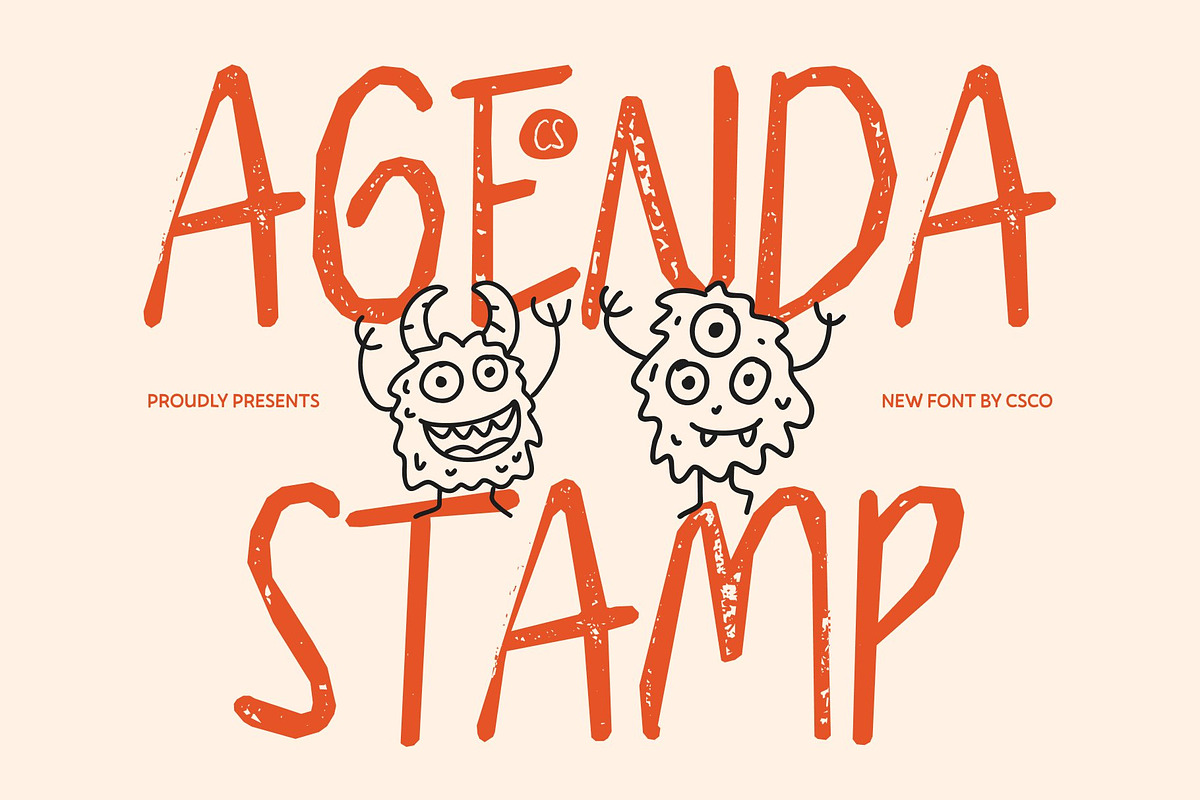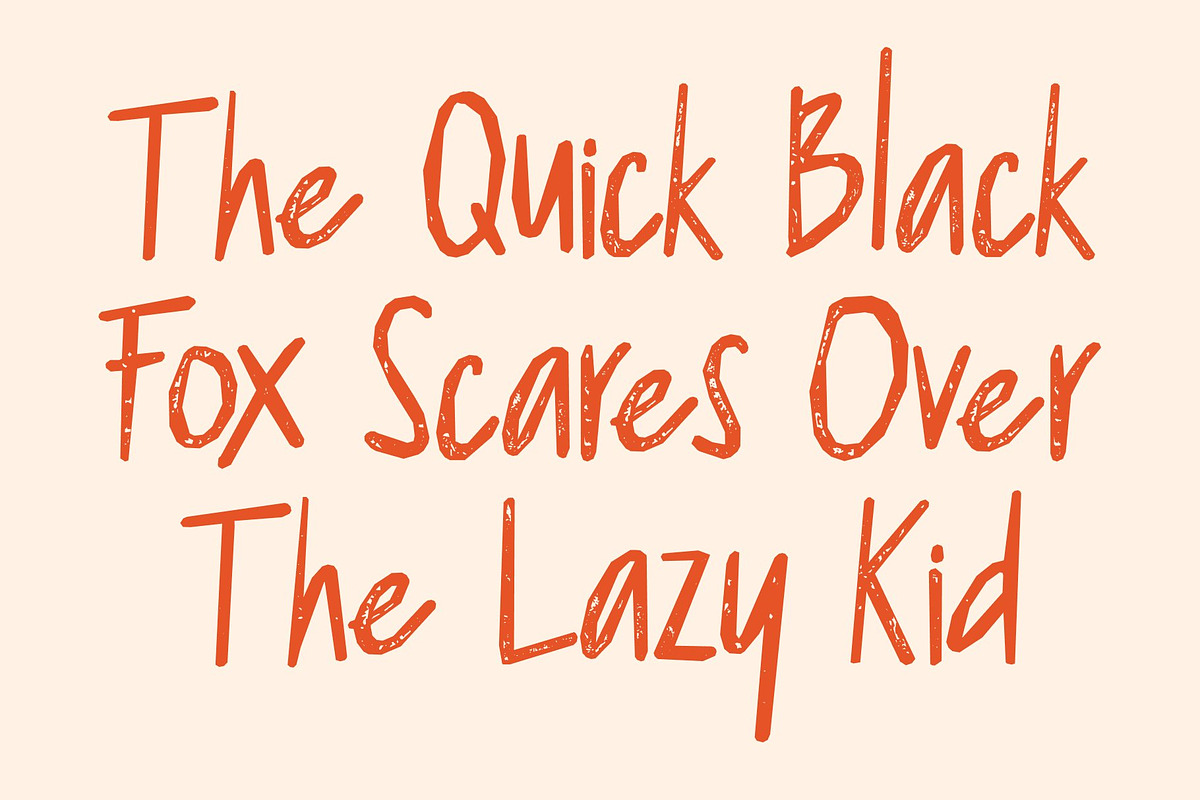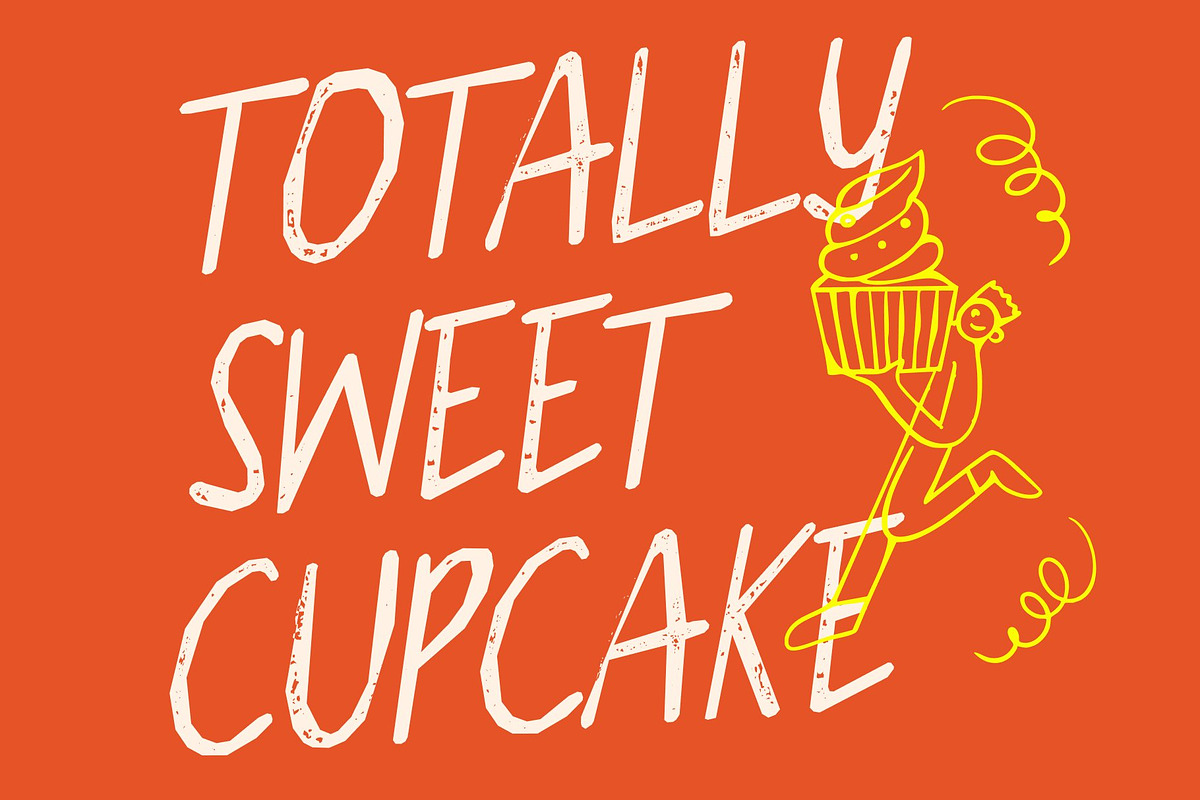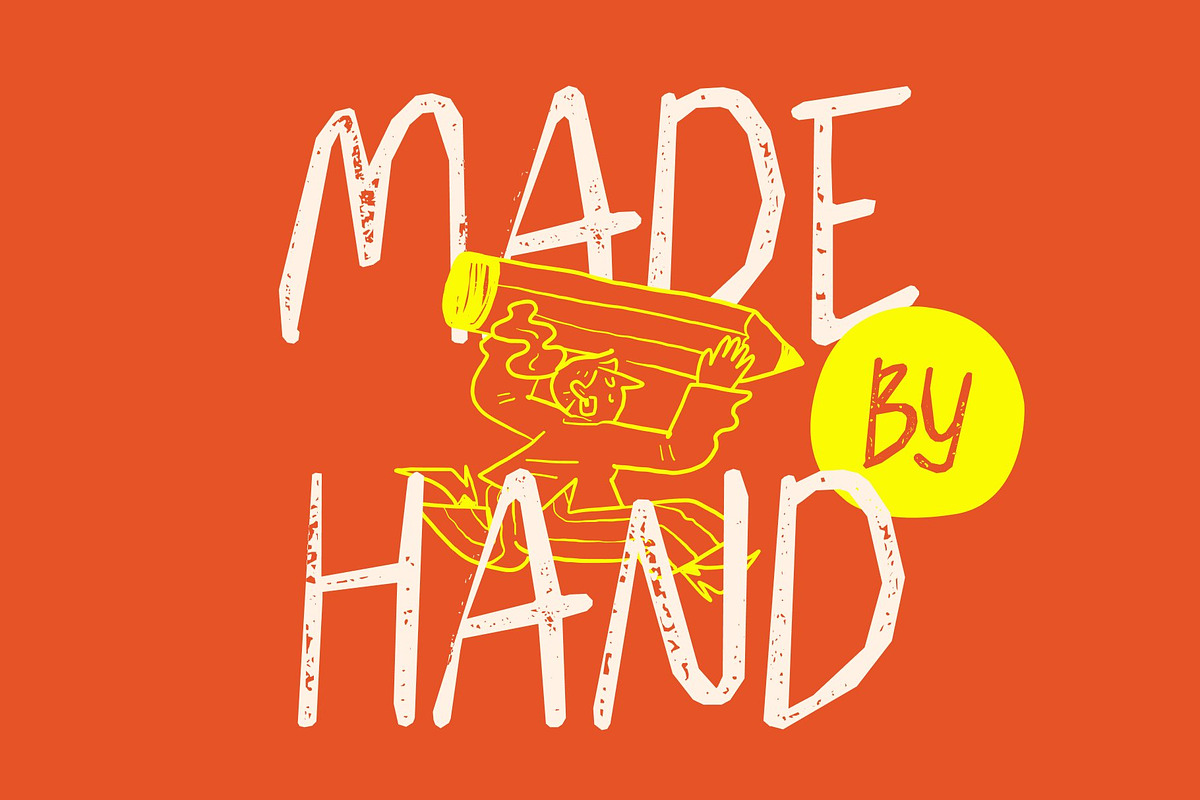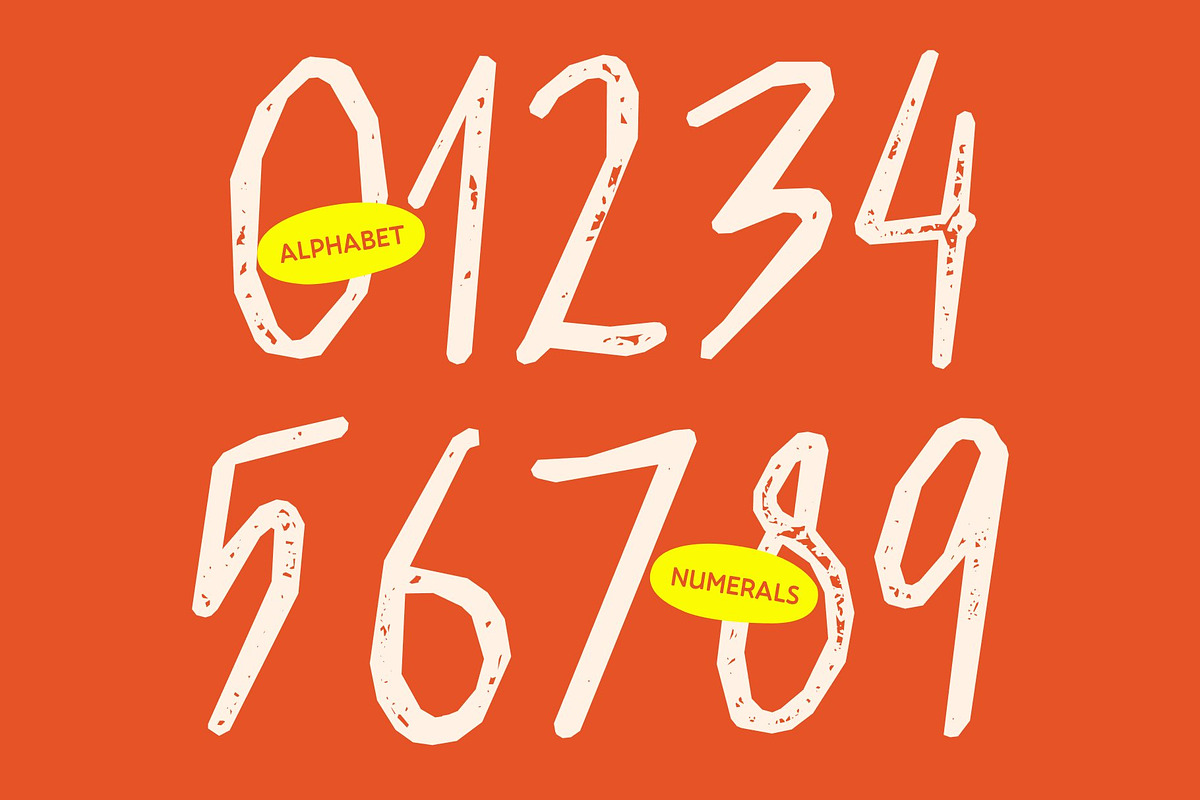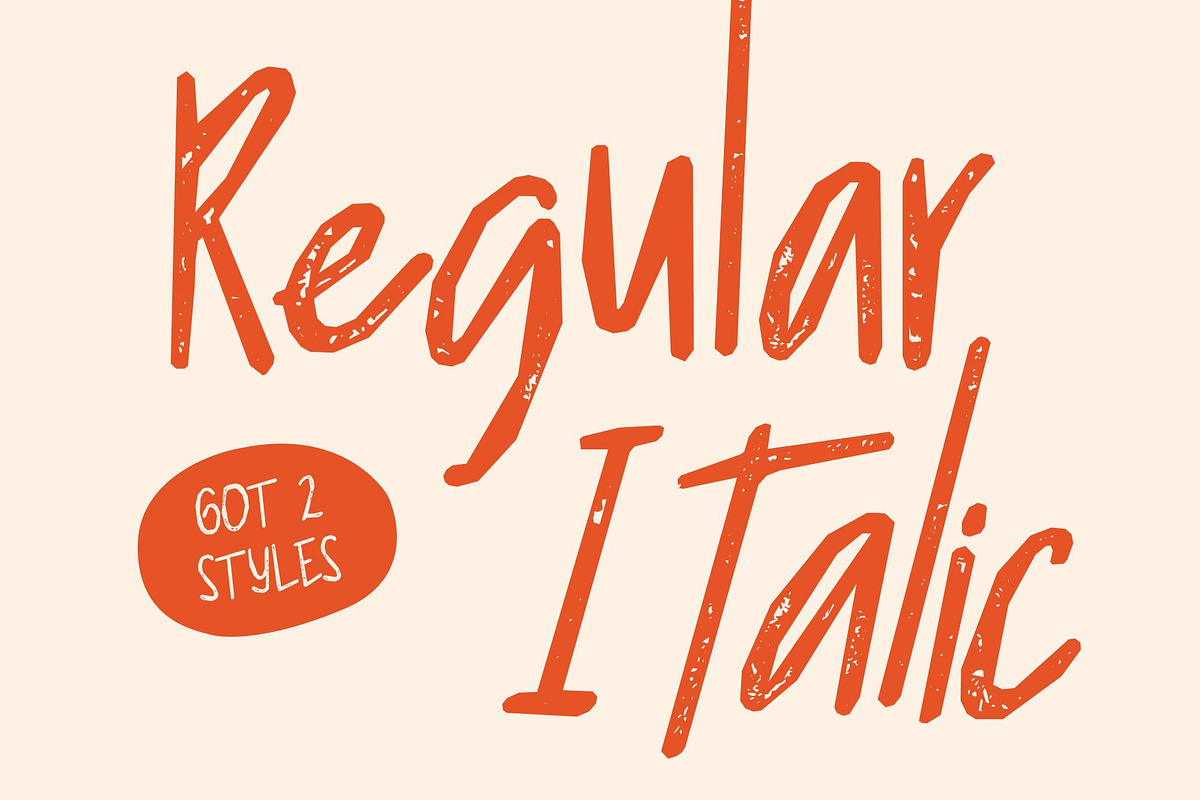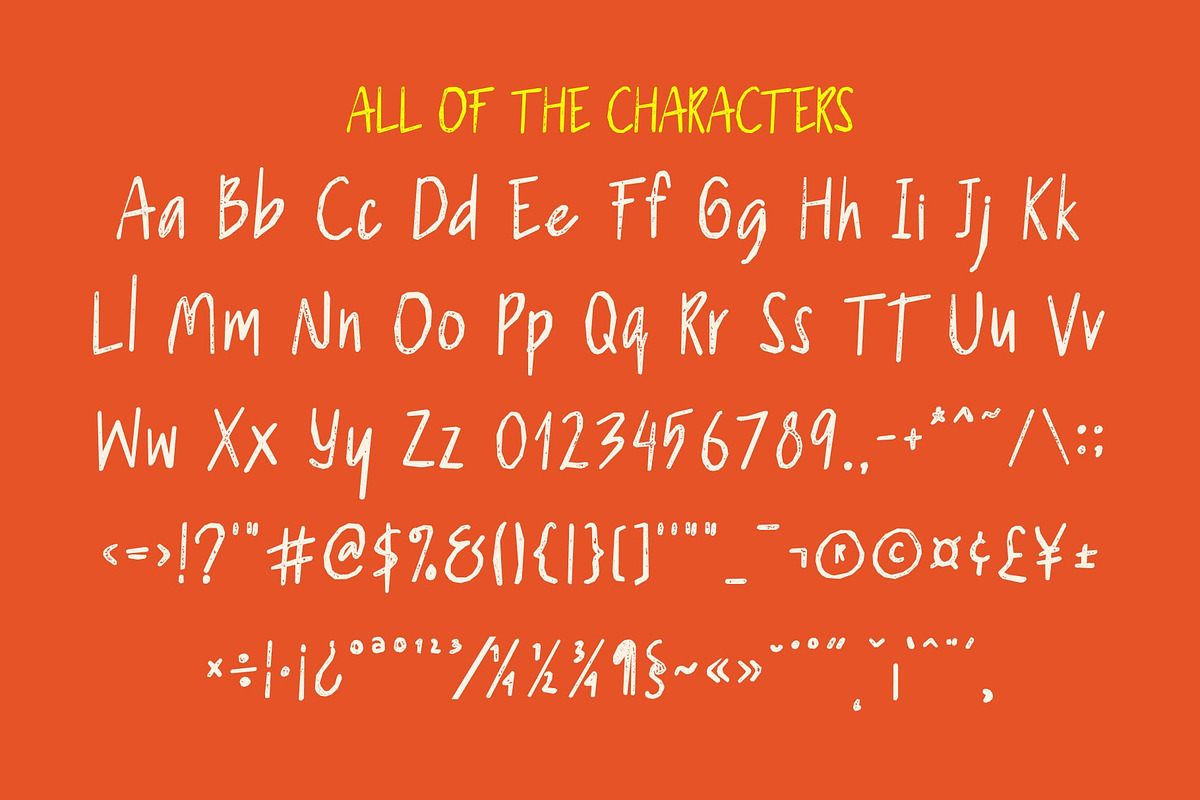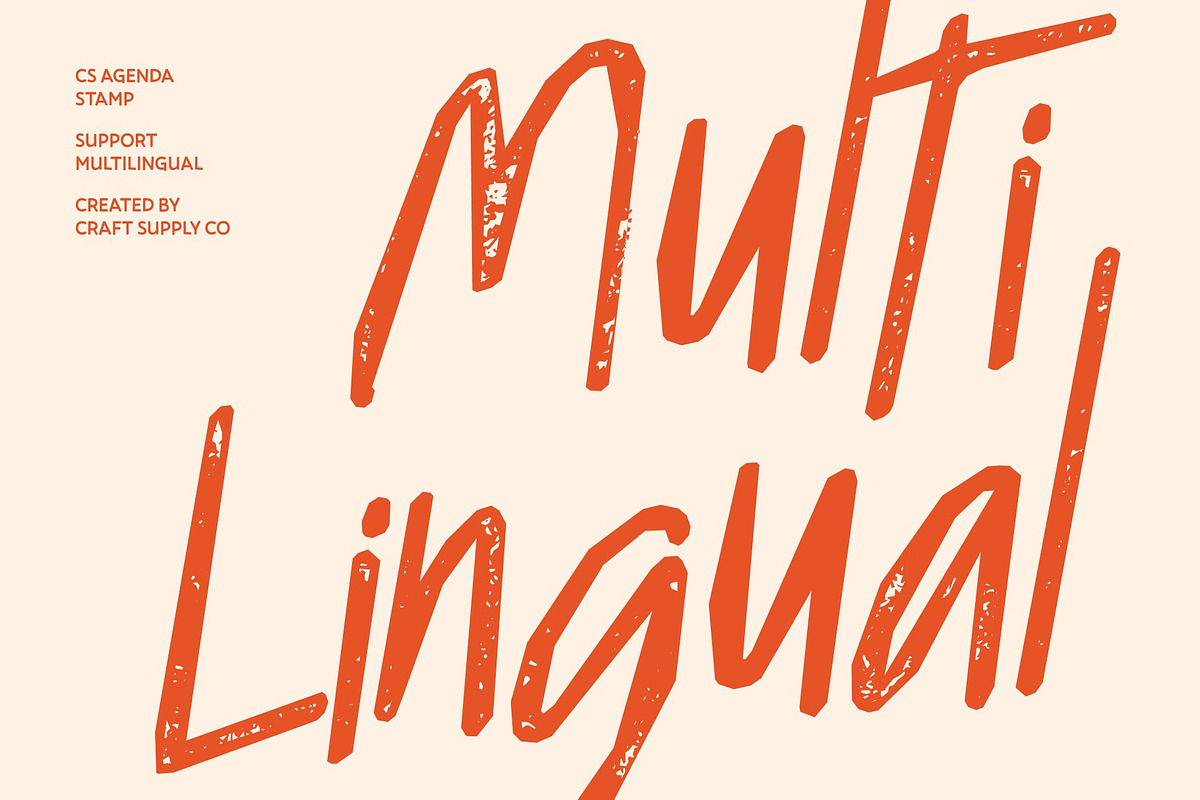
CS Agenda Stamp
CS Agenda Stamp – Handwritten Sans Font with Modern Personality Casual Elegance with a Textured Human Touch This is a handwritten sans serif font that blends casual charm with modern clarity. Built on clean sans-serif foundations, its handwritten strokes are enhanced by a subtle stamp texture that adds warmth, authenticity, and artistic character. The result is a font that feels friendly, expressive, and visually engaging while remaining structured and contemporary.
Natural Handwritten Feel with Clear Readability The soft handwritten forms introduce a personal, organic rhythm, while the sans serif structure ensures balance and legibility. The stamped texture gives the letters a slightly imperfect, handcrafted appearance, creating a natural and approachable look without sacrificing clarity. This balance makes suitable for both display use and readable text compositions.
Warm, Authentic Style for Branding and Creative Projects Perfect for branding, packaging, posters, and creative campaigns, this font delivers a welcoming and genuine presence. Its handcrafted aesthetic resonates with audiences who value originality, creativity, and human connection, making it ideal for lifestyle brands, cafés, handmade products, and creative businesses.
Professional Versatility with Expressive Personality This font successfully bridges expressive handwriting and professional sans serif design. Its dual character allows it to adapt effortlessly from casual editorials to polished branding materials. With its modern personality, stamped texture, and friendly tone, this font brings character, warmth, and versatility to any design project.
- CS Agenda Stamp Regular
- CS Agenda Stamp Italic